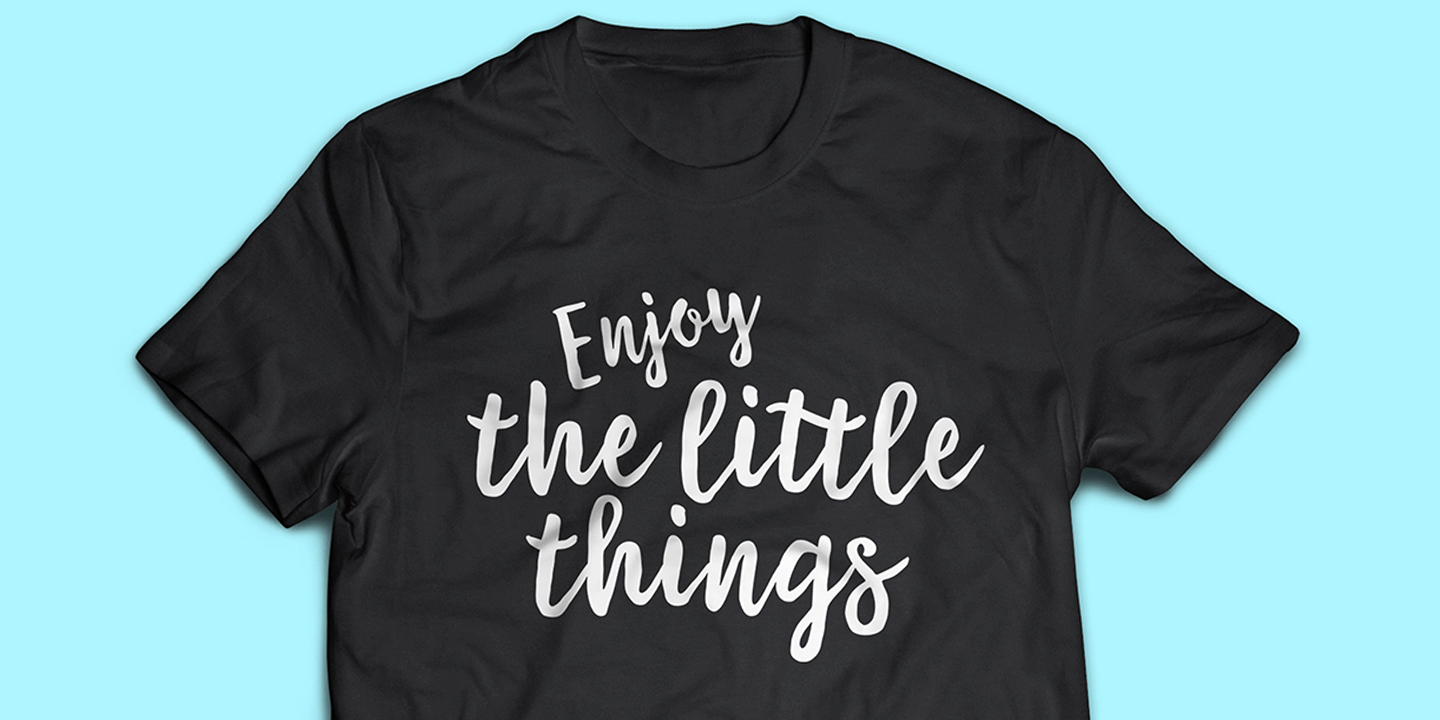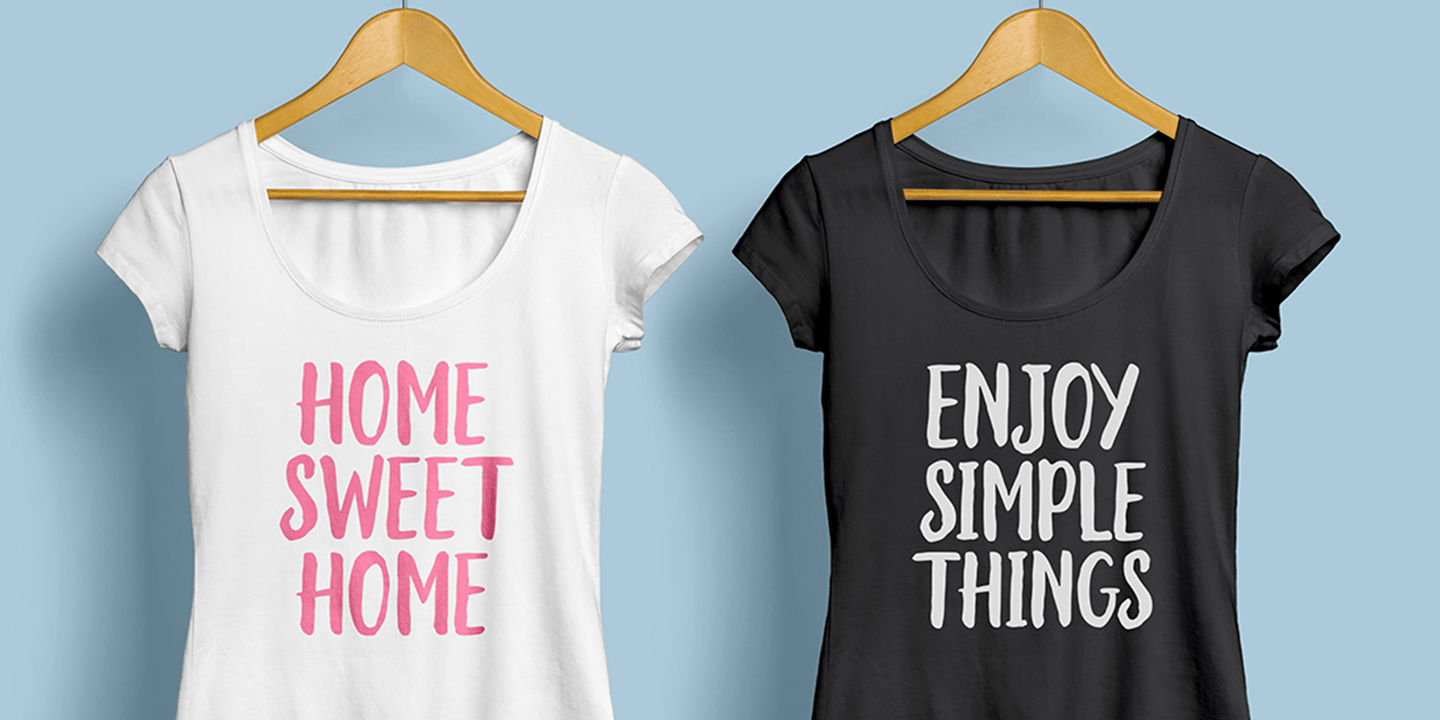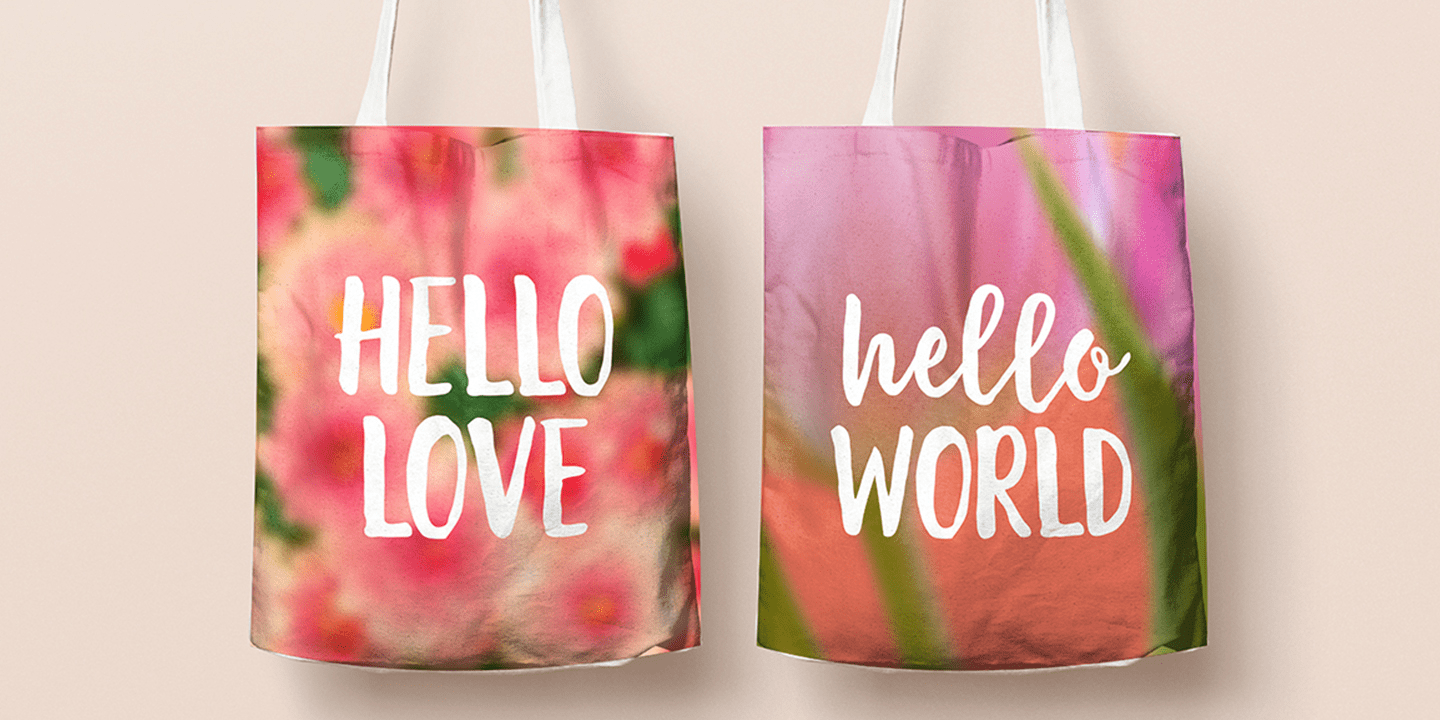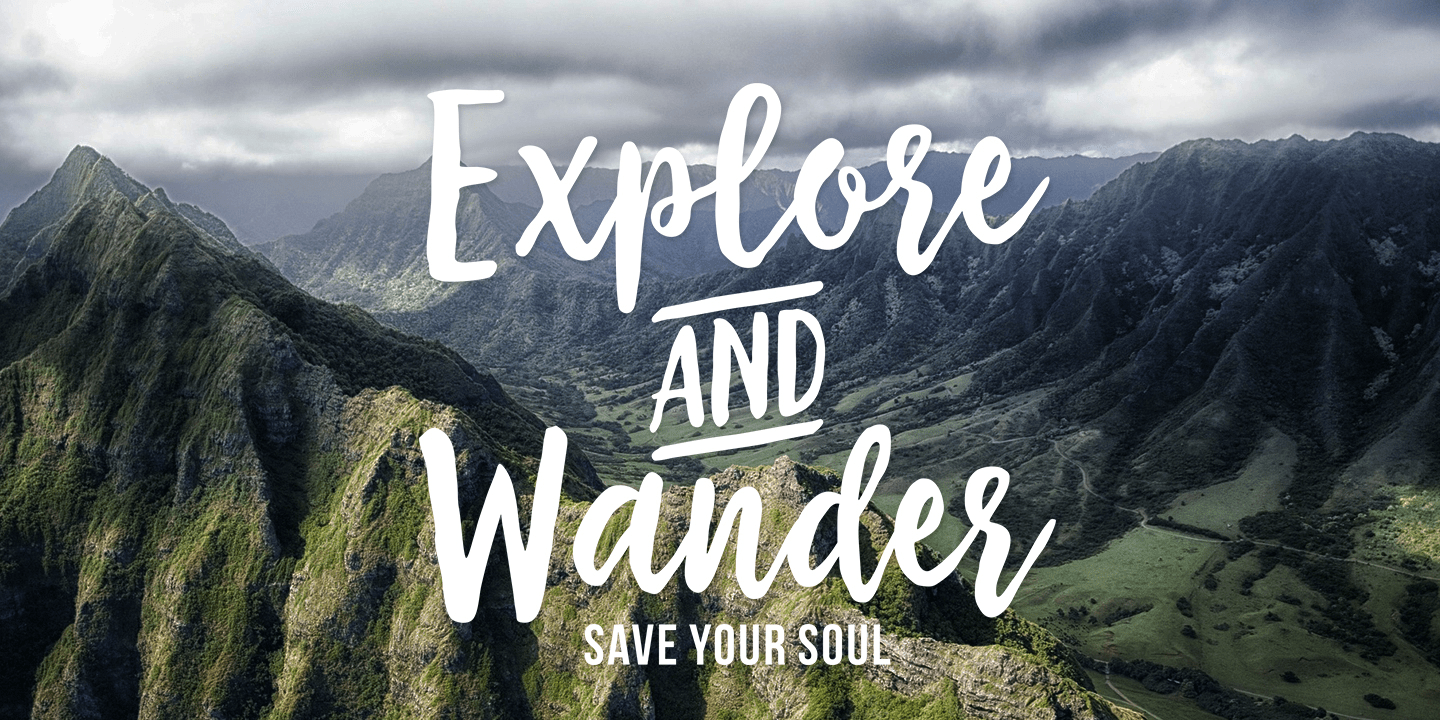
About The Sweetest Thing
The Sweetest Thing is a handmade, fresh typeface, created with brush and ink. With a contemporary approach to design, it\’s hand-painted, natural and combines a delicate script with an irregular baseline. Suitable for use in watercolor design or as a…